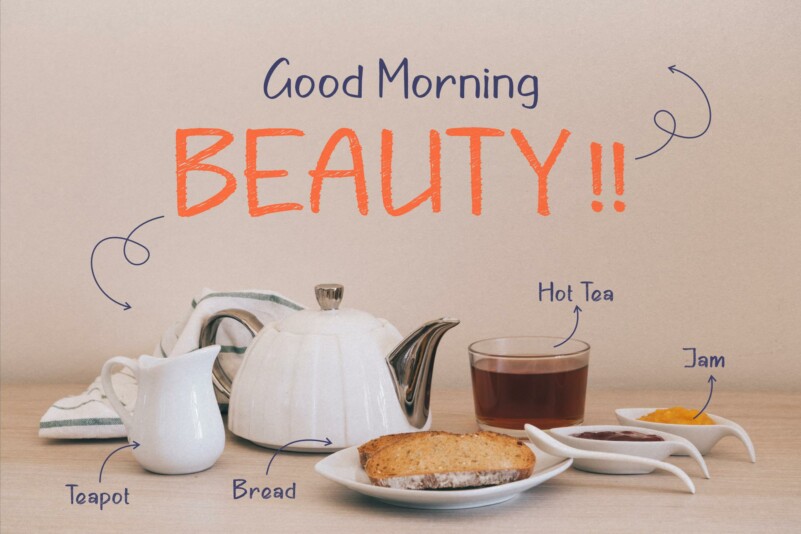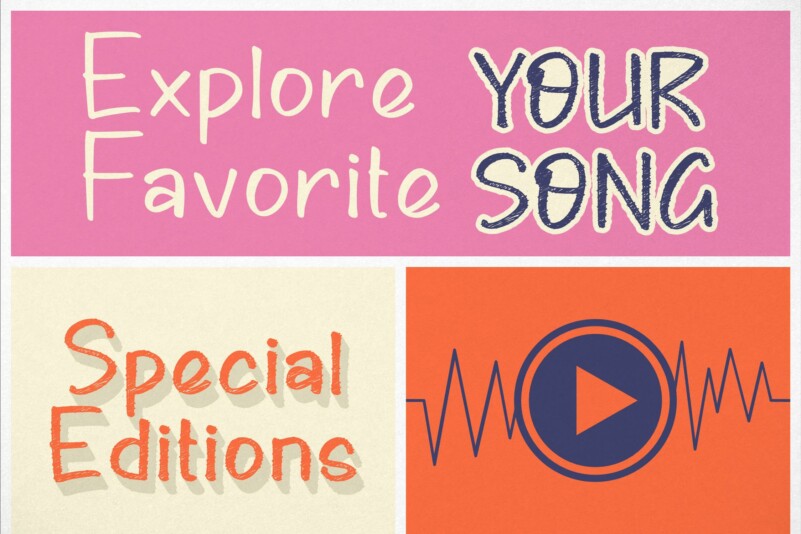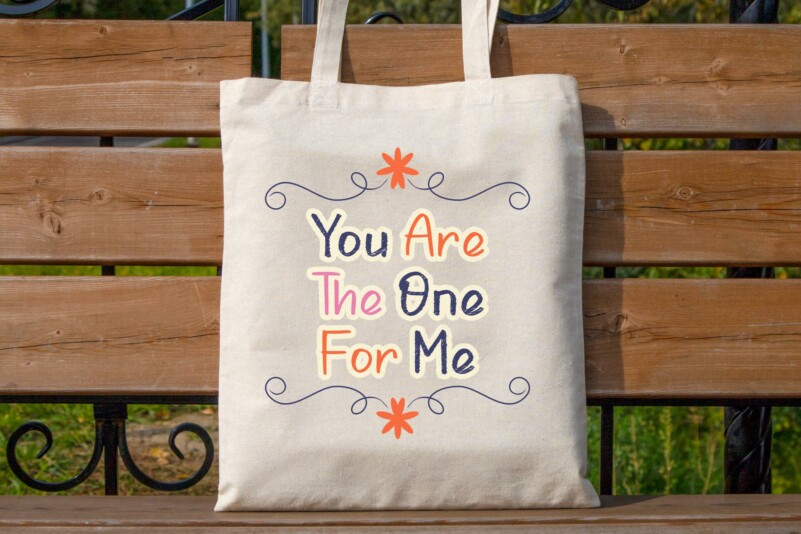
Stairway Bounty Font
Stairway Bounty Font is a scribble Display Font, suitable for any projects such as: logos, branding projects, homeware designs, product packaging, mugs, quotes, posters, shopping bags, t-shirts, book covers, name card, invitation cards, greeting cards, label, photography, watermark, special events, and all your other lovely projects that need a beautiful script taste.